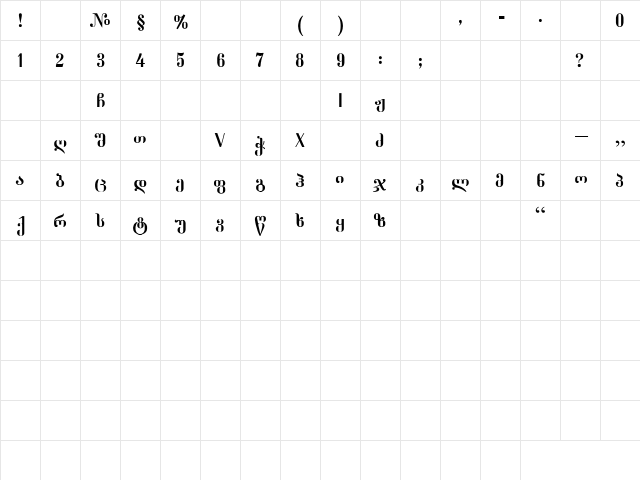
GEO-DumbaNusx Regular
Design Context for GEO-DumbaNusx Typeface
GEO-DumbaNusx offers clean, dependable letterforms without strong stylistic allegiance, making it a practical choice for designers who need flexibility.